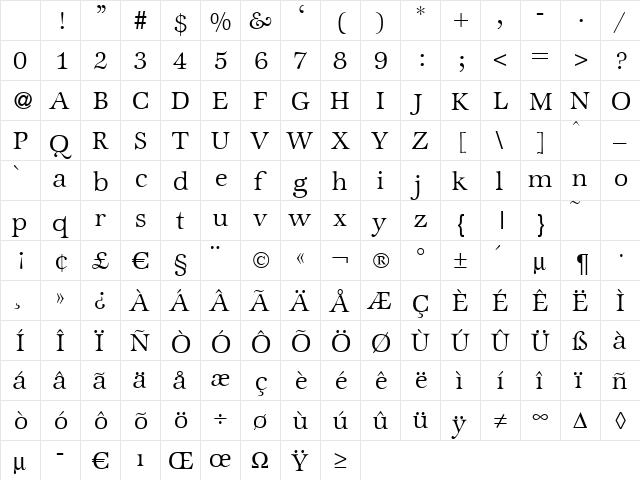
ZabriskieInternational-Light Regular
Design Context for ZabriskieInternational-Light
ZabriskieInternational-Light is a composed and adaptable typeface that performs quietly and consistently across a wide range of design contexts. Its slender proportions lend an understated elegance to any composition.